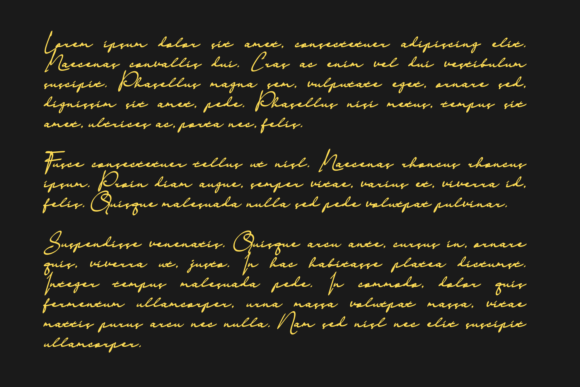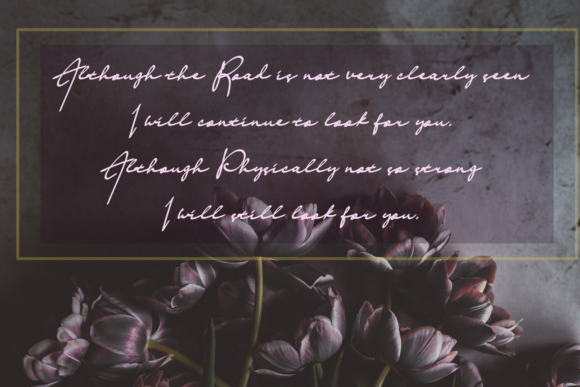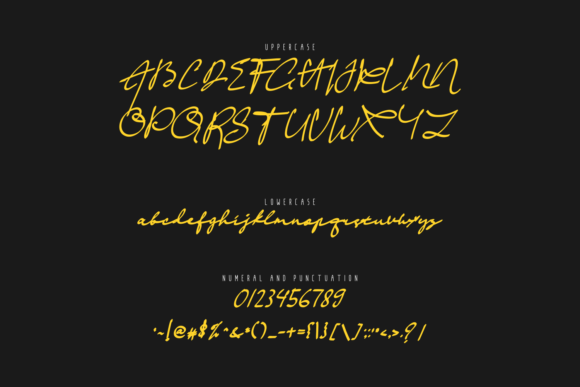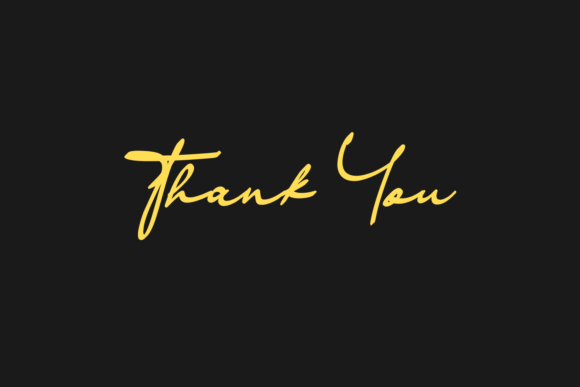
Introduction to Prewedding Font
As a designer, there’s nothing quite like the rush of creative excitement when a new project comes along. It’s that moment when the blank page stares back at you, waiting for your imagination to bring it to life. And what better way to start than with a high-quality, one-of-a-kind font that sets the tone for your entire design?
Enter the enchanting Prewedding Font, a quirky and authentic handwritten font that’s sure to turn your creative ideas into a true standout. With its free download and transparent background, this design resource is a valuable addition to any designer’s toolkit. Whether you’re working on a wedding invitation, a social media campaign, or simply a personal creative project, the Prewedding Font is sure to bring a touch of magic to your work.
Key Features of Prewedding Font
- High-quality design with a unique, elegant style perfect for creative projects.
- Designed specifically for prewedding and wedding-related projects, making it an ideal choice for event planners, photographers, and designers.
Honest Review: Prewedding Font
As a designer, I’m always on the lookout for high-quality design resources to enhance my creative projects. Recently, I stumbled upon the Prewedding Font, and I must say it’s a great find. ✨
The font is a beautiful, elegant script that’s perfect for wedding invitations, save-the-dates, or any other pre-wedding stationery. It’s available as a free download, which is a major plus in my book. The transparent background makes it easy to use with any design element, and the font files are compatible with a range of software, including Adobe Illustrator and Photoshop.
- High-quality design with a beautiful, elegant script
- Transparent background for easy use with design elements
However, I do have a few limitations to note. ⚠️ The font is not suitable for large blocks of text, and it’s best used for short phrases or headings. Additionally, the font files are not customizable, which may limit its use in certain design scenarios.
Overall, I’m impressed with the Prewedding Font, and I think it’s a great addition to any designer’s toolkit. With its high-quality design and ease of use, it’s a must-have for any creative project involving weddings or special occasions.
Tips for Getting the Most Out of Prewedding Font
For best results, use the Prewedding Font in conjunction with other high-quality design elements. Experiment with different font sizes, colors, and styles to create a unique look.
The Prewedding Font is ideal for wedding invitations, save-the-date cards, and other wedding-related designs. You can also use it for creative projects such as graphic design, digital art, or typography exercises.